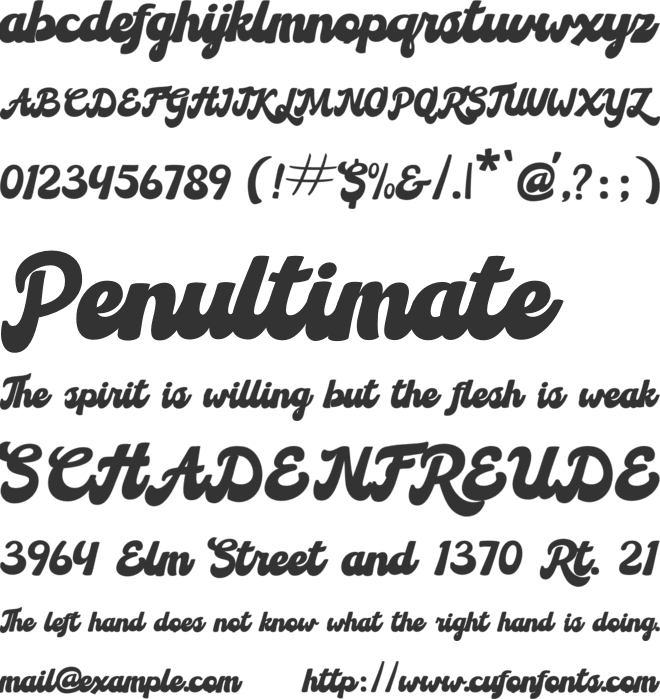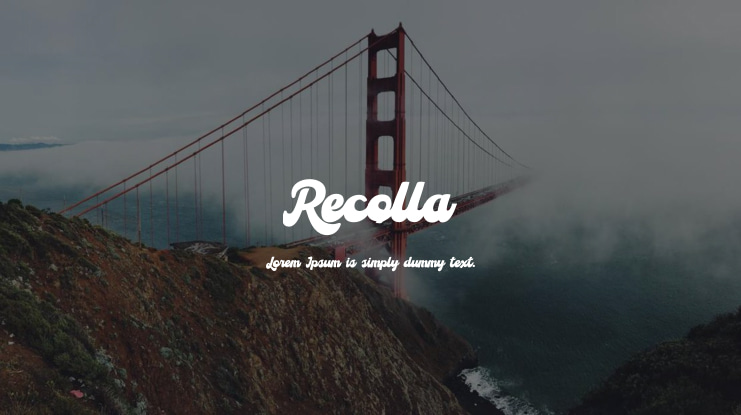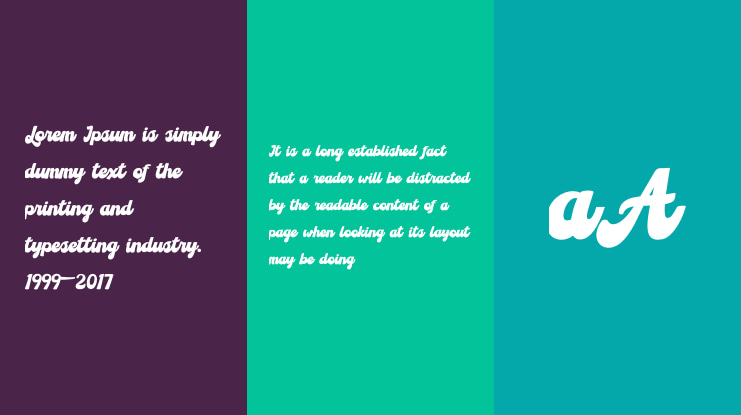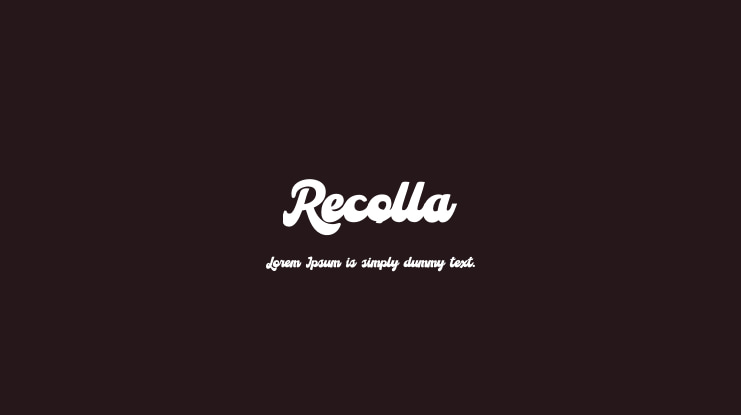
Recolla Font
Recolla is a bold script display font that exudes energy, style, and confidence. Designed with dynamic curves and strong strokes, this font delivers an elegant yet daring impression, perfect for creating captivating designs.
Each letter in Recolla flows with a natural rhythm, adding an authentic handmade touch. Its bold yet flexible form makes it ideal for logos, branding, product packaging, posters, and other creative designs.
Beyond its visual appeal, Recolla also offers an exclusive feel that enhances the premium and distinctive character of your designs. Make Recolla the centerpiece of your creative projects, and let its unique charm make every creation stand out!